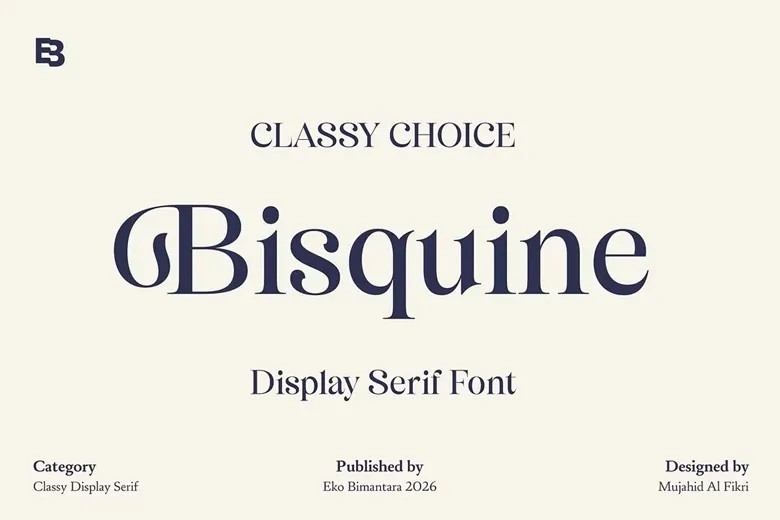
Bisquine Font
Bisquine is a display serif font with elegant letterforms and balanced proportions, giving it a sophisticated look. It includes stylish alternates, making it easy to create unique and attractive typography.
Bisquine works well for branding, feminine designs, websites, headers, titles, and any creative project that needs a polished and luxurious look.
Bisquine Serif Font